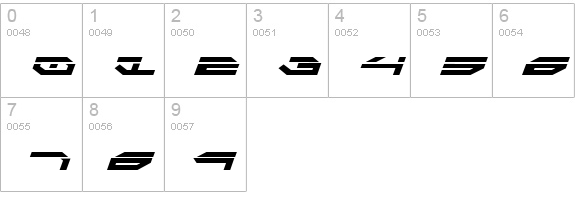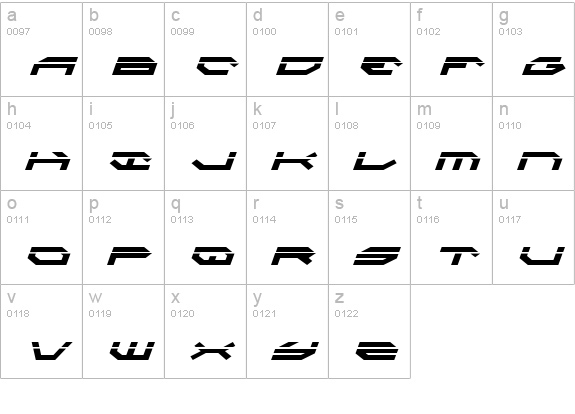
Taskforce Laser Italic is a distinctive, italic variant in the Taskforce typeface family \xE2\x80\x94 well suited to design and typography projects.
Taskforce Laser Italic is a sleek and modern font that exudes sophistication and style. Its sharp, angular lines give it a futuristic and dynamic appearance, making it perfect for projects that require a bold and edgy touch. The italicized version of the font adds a touch of elegance and flair, making it ideal for creating eye-catching designs. What sets Taskforce Laser Italic apart is not only its striking design but also the fact that it is available for free download at FontsMarket.com. This means that you can easily access this unique and stylish font to enhance your creative projects without any cost. Whether you're designing a poster, logo, website, or any other graphic element, Taskforce Laser Italic is sure to make a powerful statement and leave a lasting impression. Download it now and let your creativity shine with this exceptional font!